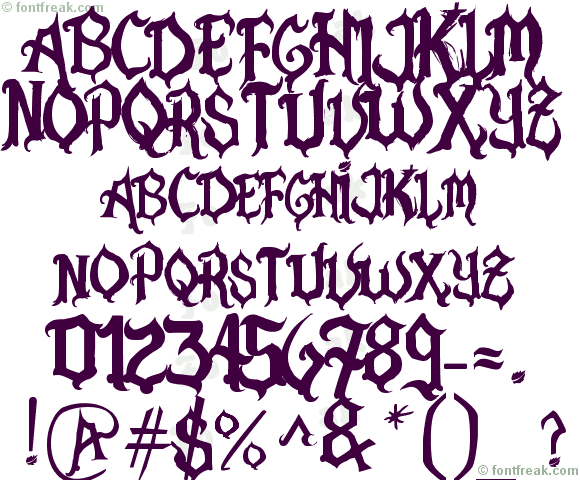
Pasión Acústica
Pasión Acústica2 Bold
About Pasión Acústica
Pasión Acústica, designed by Juan Casco in 2009, is a captivating decorative font that combines artistic flair with a bold presence. This freeware typeface features unique, sharp strokes and exaggerated serifs, making it ideal for creative projects that require a touch of drama. The strong contrast in stroke weight adds a dynamic quality, while the deliberate spacing provides clarity, ensuring that each character stands out beautifully, even in longer text settings.
This font is particularly well-suited for a variety of applications. It can elevate the aesthetics of wedding invitations with its romantic and artistic vibe, making memorable announcements that resonate with guests. Additionally, Pasión Acústica shines on movie posters, where its bold and eye-catching style draws attention and sets the tone for cinematic adventures. Restaurant menus can also benefit from this font, lending an air of sophistication and creativity to the dining experience. Furthermore, it serves as an excellent choice for branding materials, allowing small business owners to craft a distinctive identity that captures their audience's imagination.
Targeted towards graphic designers, small business owners, and content creators, Pasión Acústica offers a versatile tool for those looking to make a statement. Whether you’re designing a promotional flyer, social media graphics, or artistic book covers, this font provides an edge that can enhance any project.
What sets Pasión Acústica apart is its striking visual impact and artistic uniqueness. It stands out in a crowded font marketplace, appealing to those who appreciate creativity and character in typography. For anyone seeking to infuse their work with personality and flair, the Pasión Acústica font free download is an opportunity not to be missed.